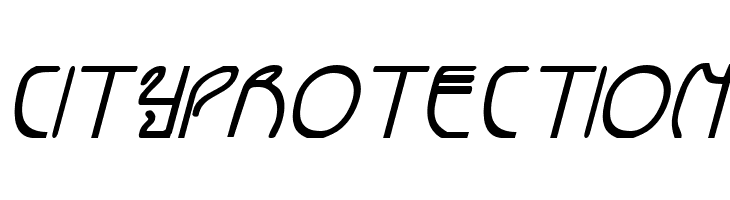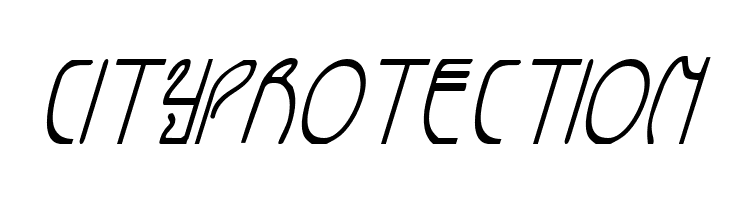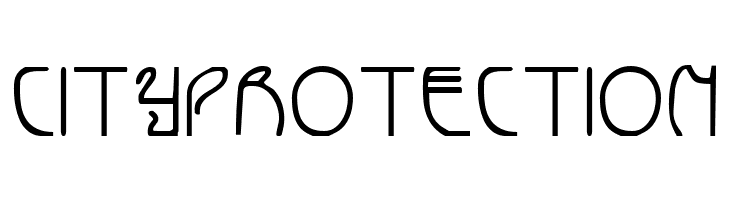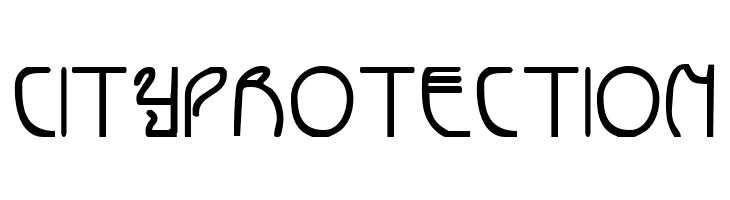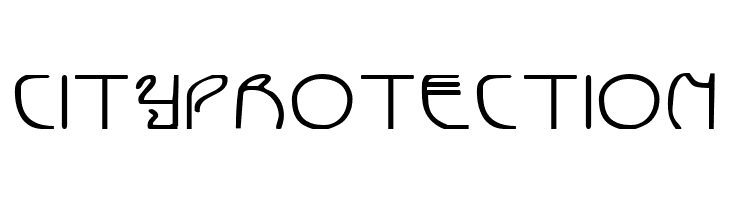
• CorrosClassicClimbers
A bold, playful font with a distressed texture and climbing figures integrated into the design.
• Corrupter
A playful, distorted font with quirky, energetic characters.
• Cortin
• Cosmonautica
A futuristic and sleek font with thin, elongated letterforms and geometric shapes.
• CotoCity
A bold, playful font with bottle-like shapes and a whimsical style.
• CotoCity Bold
A bold, futuristic font with geometric and rounded forms.
• CotoCity Italic
• CountryLife
A decorative font featuring detailed illustrations of rural life elements.
• Couples
Cartoon couples form each character in a playful, hand-drawn style.
• Courage Road
A bold, textured font with a distressed, vintage look.
• Courtney Dorkling
A playful, handwritten font with a casual and dynamic style.
• Coventry Garden NF
A decorative serif font with intricate swirls and classic elegance.
• CoventryGardenNF
An ornate and elegant serif font with decorative uppercase letters.
• Coverface Light SE
A bold, rounded font with smooth curves and a modern, friendly appearance.
• Coverface SE Light
• Covert Ops 3D Italic
A bold, 3D italic font with a futuristic and dynamic style.
• Covert Ops 3D Regular
A bold, 3D geometric font with a strong, outlined design.
• Covert Ops Condensed
A bold, condensed stencil-style font with sharp, angular edges.
• Covert Ops Condensed Italic
Bold, condensed, and italic with a modern, angular design.
• Covert Ops Expanded
A bold, stencil-like font with geometric shapes and an expanded width, ideal for impactful headlines.
• Covert Ops Expanded Italic
A bold, expanded, italic font with sharp angles and a modern, dynamic style.
• Covert Ops Italic
A bold, italic, and angular font with a futuristic style.